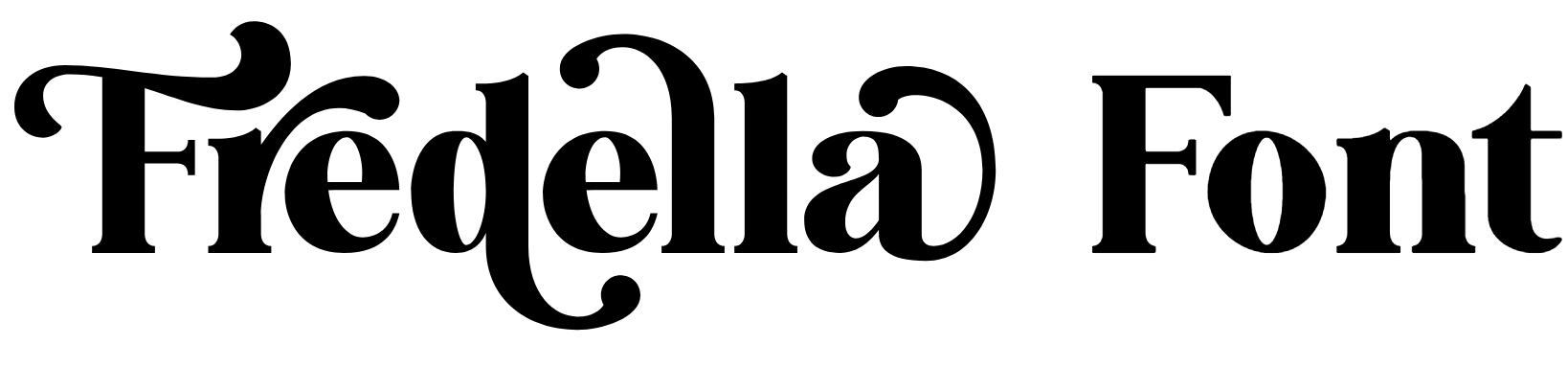
Fredella
Fredella is a serif font designed by Risma Ramawi and published by Nirmala Creative (2020). It has the traditional, bookish feel of type you see in novels, newspapers and long-established brands. You can download it for free and test it with your own words in the preview above.
Fredella covers the full alphabet in upper and lowercase, plus all ten numbers, so you can set names, dates and prices without switching fonts. Everyday marks like &, !, ? and @ are there too. Thanks to its accented letters, it also works for Spanish, French, German, Portuguese and Italian, not just English.
Its 160 alternates are stored as separate characters, so you can copy them from Character Map on Windows or Font Book on a Mac and paste them anywhere, including Cricut Design Space and Canva. Its ligatures switch on by themselves in most design apps: certain letter pairs join into one specially drawn shape.
Think of Fredella for book covers, magazine headlines and classic branding. Serif fonts shine in headlines and printed text. For long paragraphs on phones, check that it still reads well at small sizes.
Yes. Fredella includes the accented letters needed for Spanish, French, German, Portuguese and Italian, so it works for more than just English.